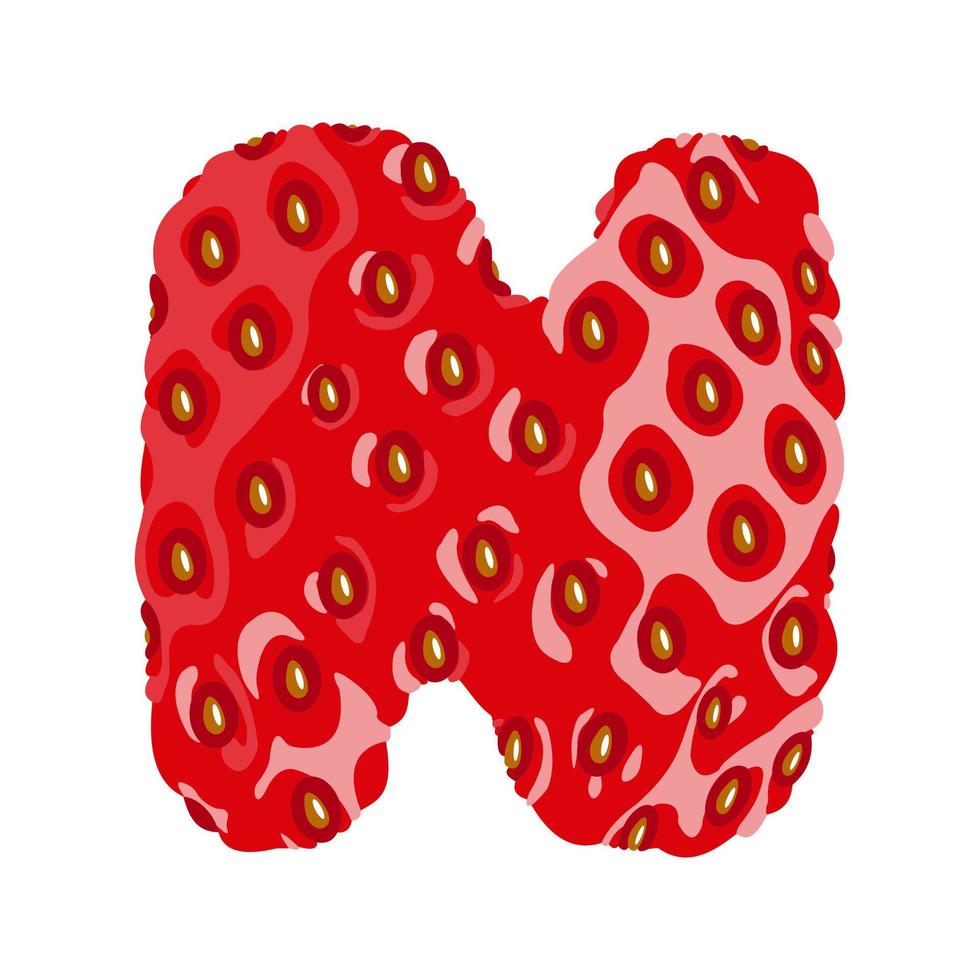
Strawberry font. Letter N. Alphabetical character with strawberry texture. Character representing one or more of the sounds used in speech. Decorative fruit font. Vector illustration. Pro Vector